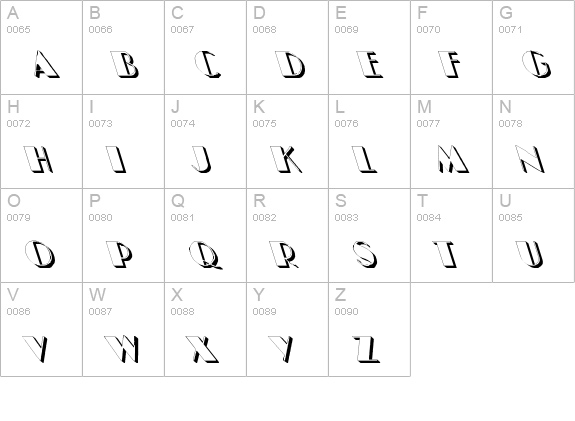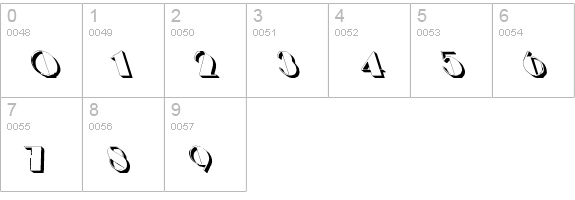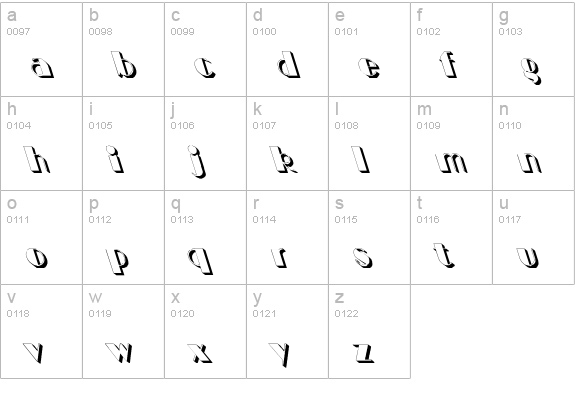
BIGCSHAD Lefty Font Details
BIGCSHAD Lefty font is a unique and eye-catching typeface that exudes creativity and personality. With its bold and playful design, this font is perfect for making a statement in your projects. The distinct left-slanted characters add a dynamic touch to any text, making it stand out from the crowd. The best part? BIGCSHAD Lefty font is available for free download at FontsMarket.com. You can easily enhance your designs with this one-of-a-kind font without having to spend a dime. Whether you're working on a branding project, poster design, or social media graphics, BIGCSHAD Lefty font will add a touch of fun and flair to your creations. Download it now and let your creativity shine!